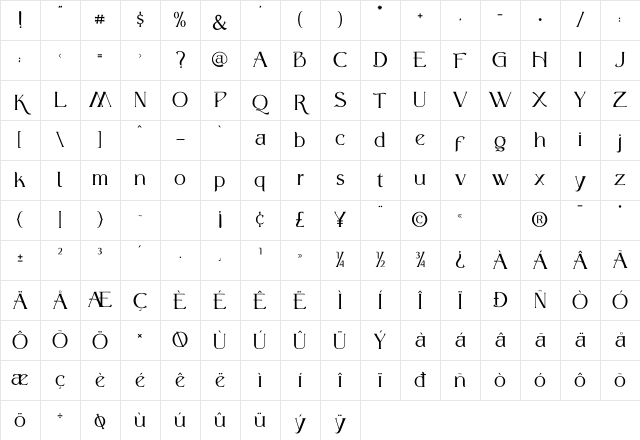
King Victory Demo Regular
Foundry: Nirmana Visual
Designer: Sigit Dwipa
Design Context for King Victory Demo
King Victory Demo is a composed and adaptable typeface that performs quietly and consistently across a wide range of design contexts.